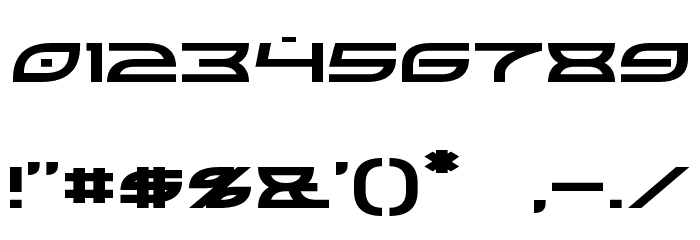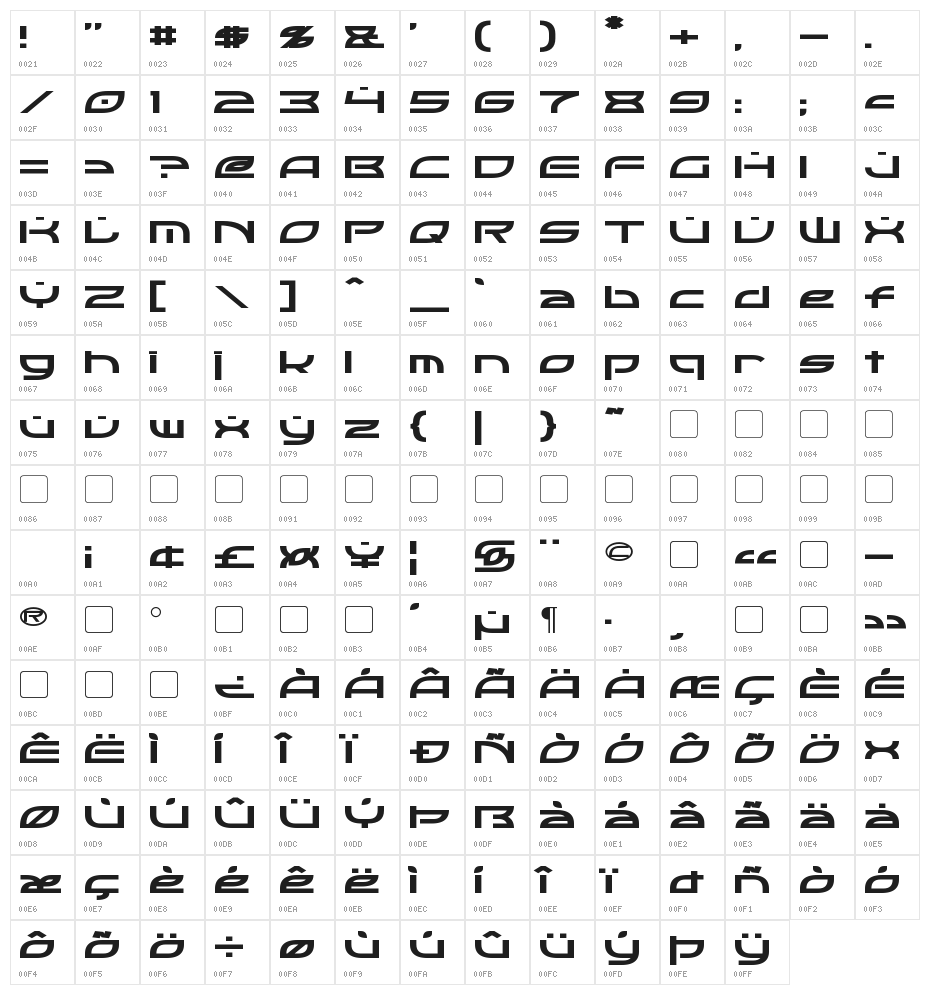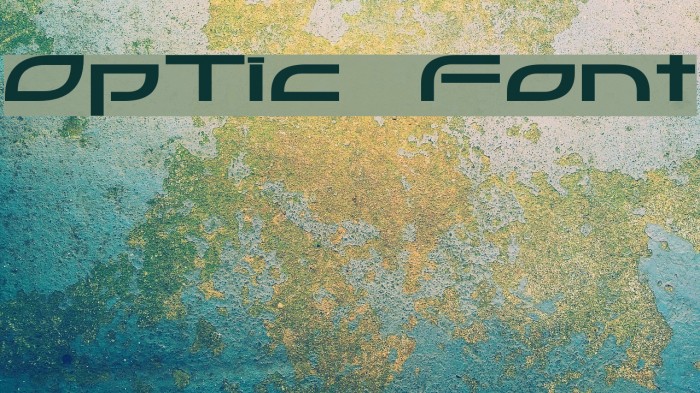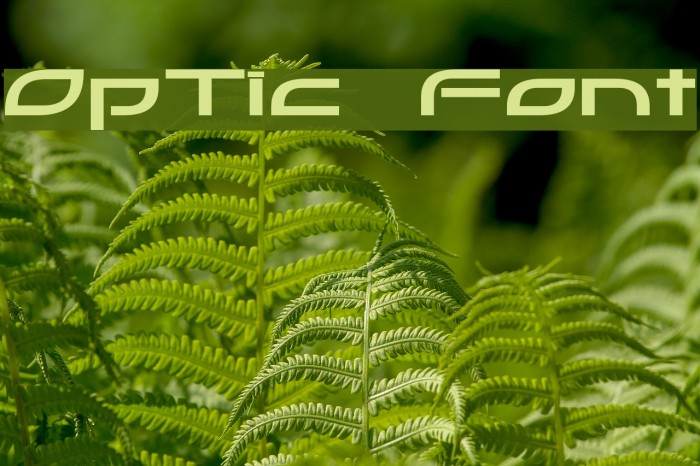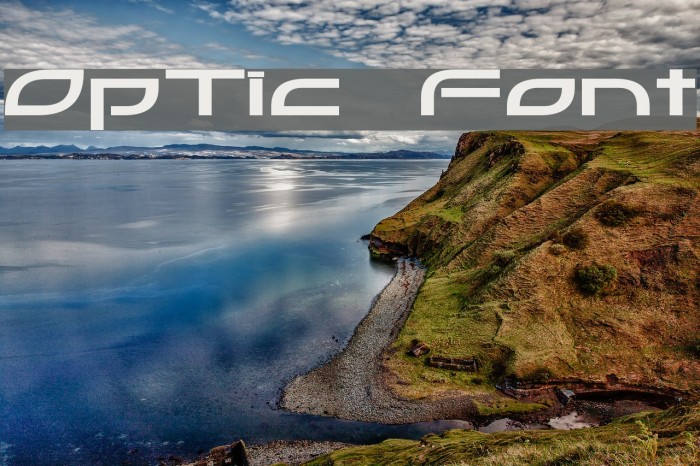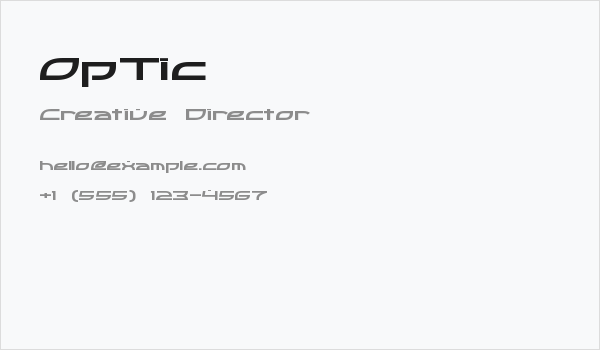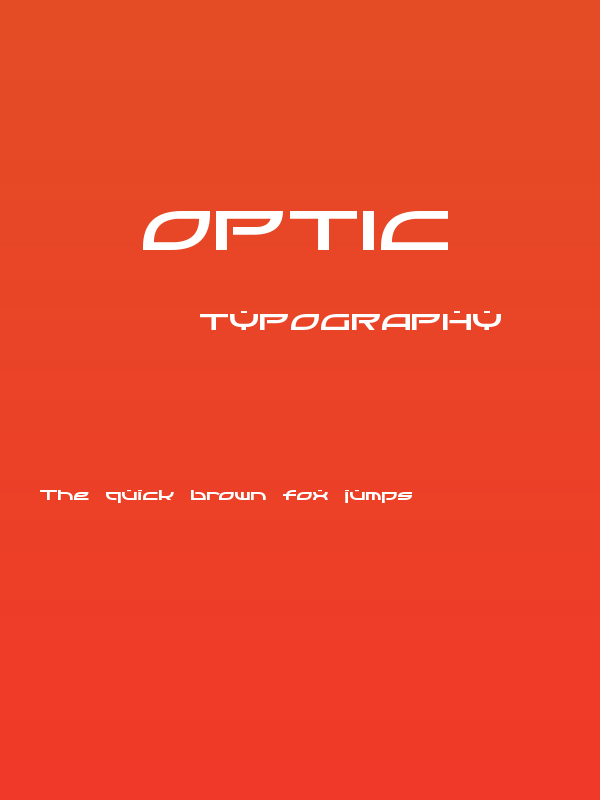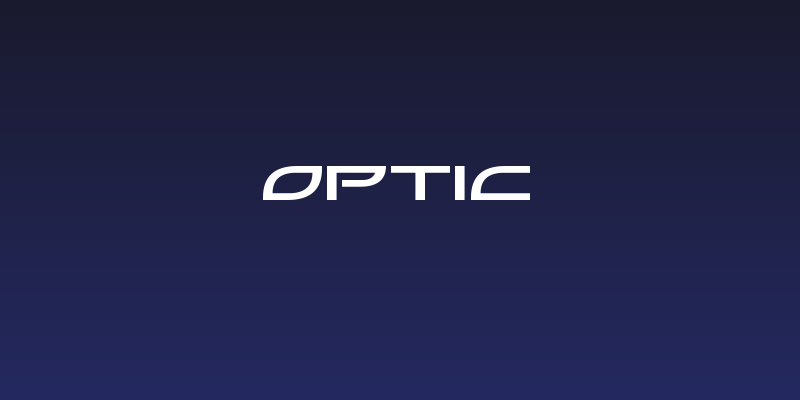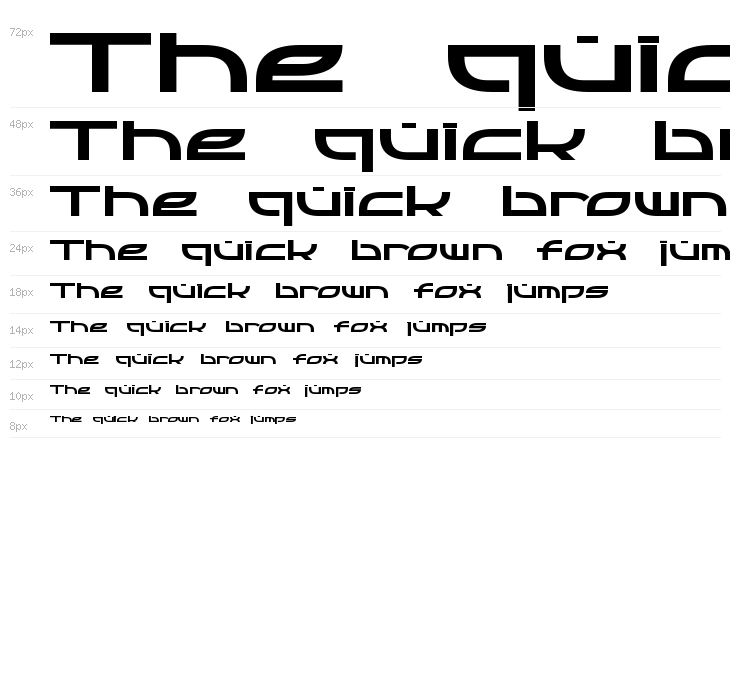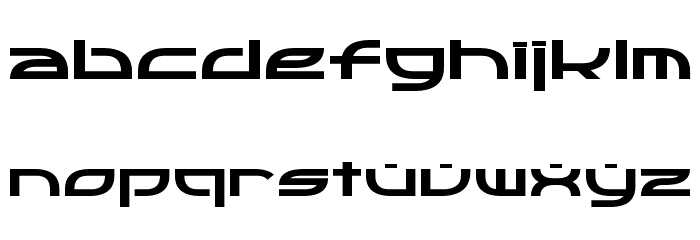
OpTic Font
OpTic Description
This font features a futuristic and sleek design, characterized by its geometric shapes and sharp angles. The uppercase and lowercase letters maintain a consistent style, with a unique blend of curves and straight lines that give it a modern, tech-inspired look. The numerals and special characters follow the same design principles, ensuring a cohesive appearance across all glyphs. The font's distinct style makes it stand out, suitable for projects that require a contemporary and innovative feel.
| Proposed Projects | Ideal for technology branding, sci-fi themed projects, video game titles, and modern advertising campaigns. |